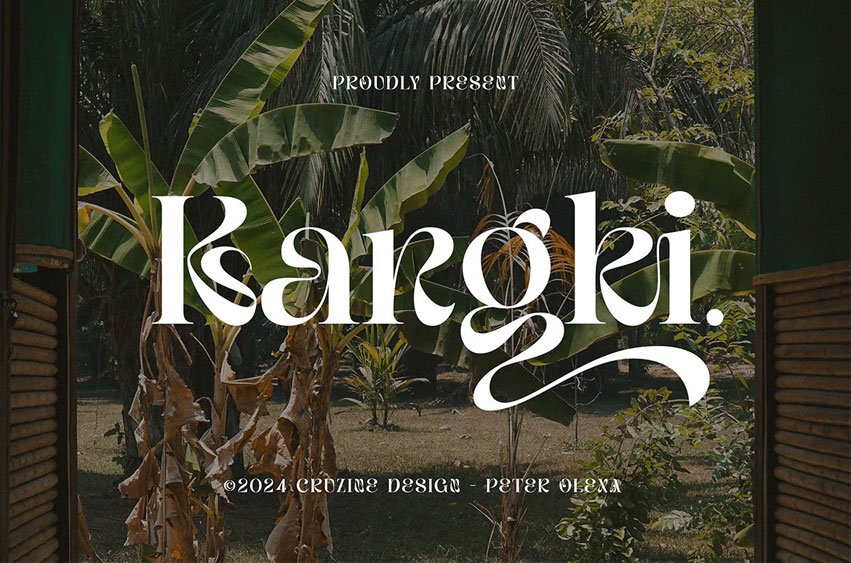
Kangki Font Trendy, elegant, luxurious, creative, sharp & modern-style serif font for your new fancy projects. Stylish, romantic, and classic style on Kangki Stylish font will be great for any modern or classy branding project. A lot of alternates and ligatures will help you to create a unique and original logo design or website header! Enjoy
- Alternate characters & a lot of ligatures
- Great for modern branding projects!